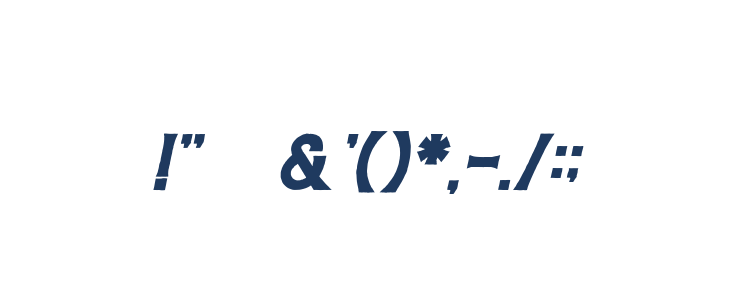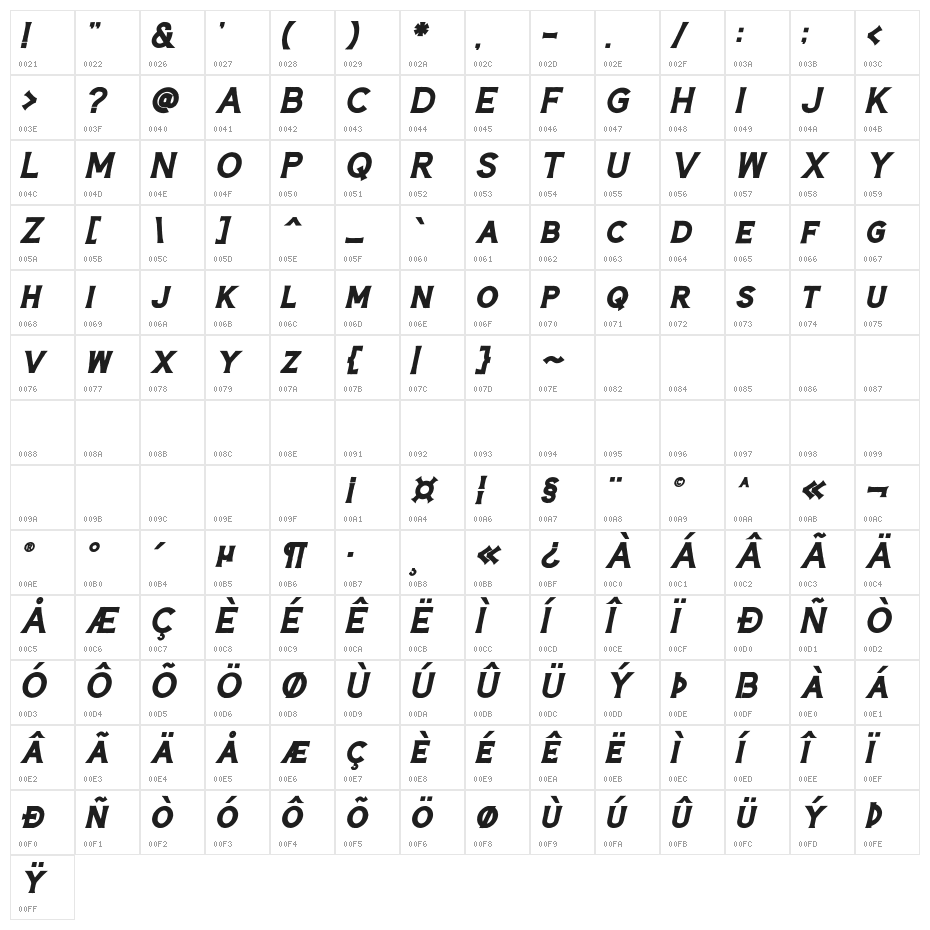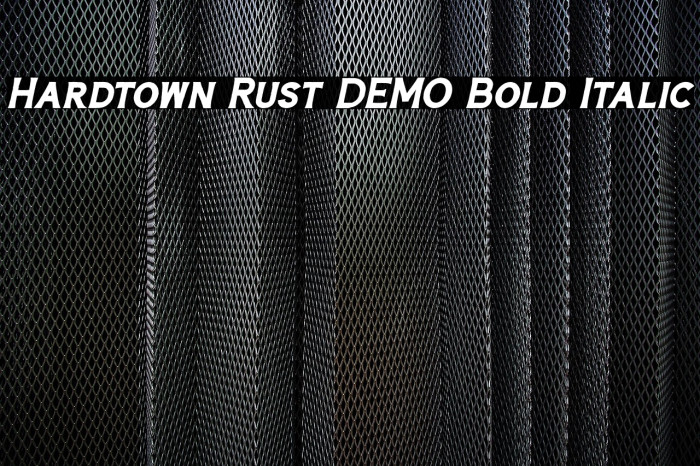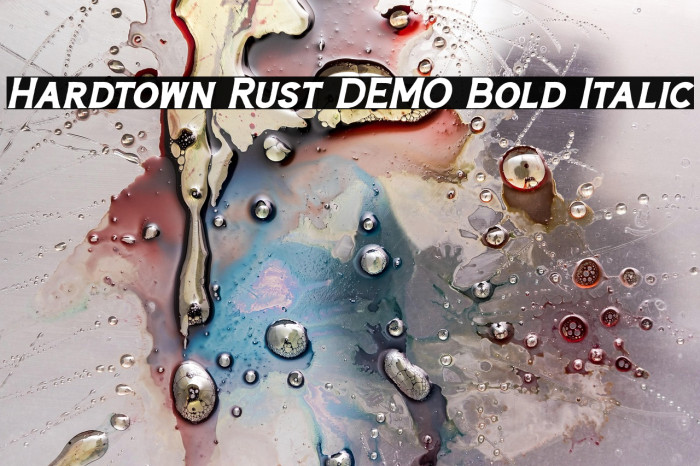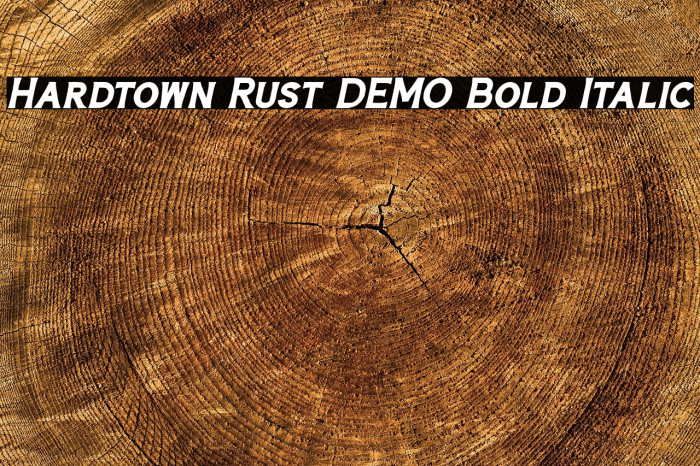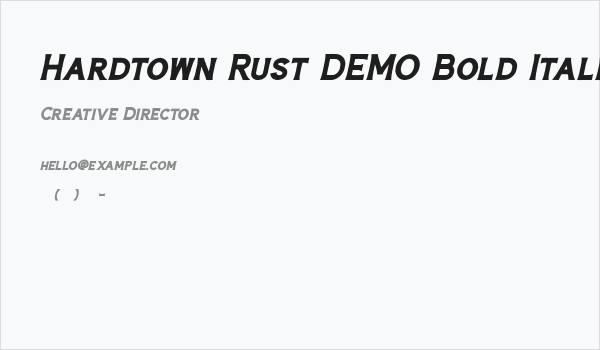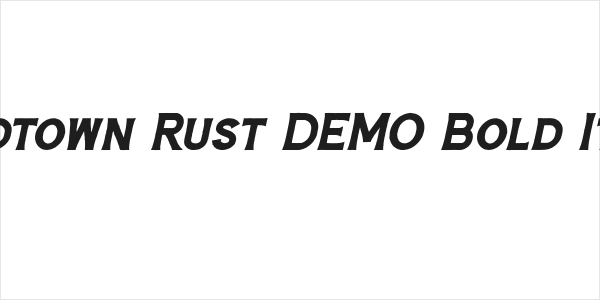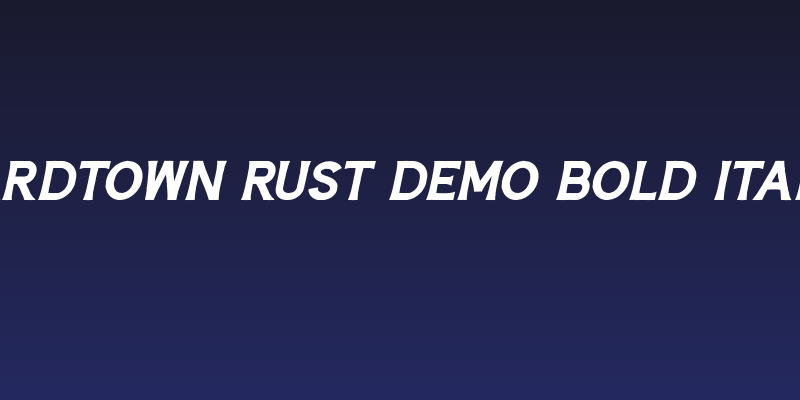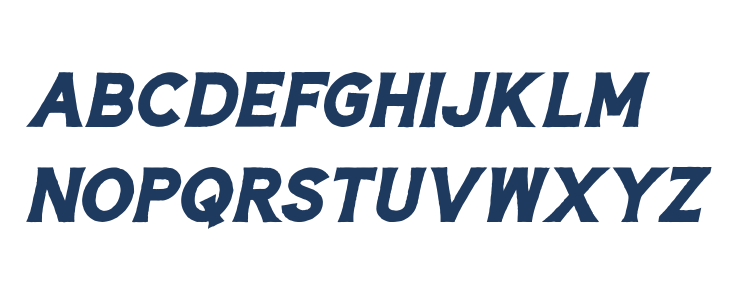
Hardtown Rust DEMO Bold Italic Font
Hardtown Rust DEMO Bold Italic Description
This font features a bold and italicized style with a dynamic and energetic appearance. The characters are slightly slanted, adding a sense of motion and urgency. The strokes are thick and consistent, providing a strong visual impact. The overall design is modern and assertive, making it suitable for attention-grabbing headlines and statements. The uppercase letters are prominent and well-defined, while the lowercase letters maintain a cohesive look. The special characters are distinct and complement the overall style, enhancing its versatility.
| Proposed Projects | Ideal for headlines, posters, branding, and advertising materials that require a bold statement. |